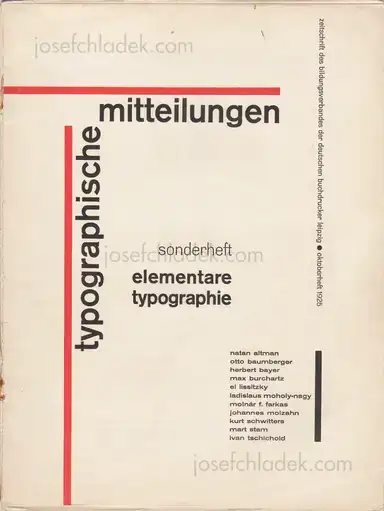
Jan Tschichold - Typographische Mitteilungen, Sonderheft Elementare Typographie Oktoberheft 1925, Verlag des Bildungsverbandes der deutschen Buchdrucker, 1925
Contains typographic works by Herbert Bayer, Max Burchartz, El Lissitzky, Moholy-Nagy, Johannes Molzahn, Kurt Schwitters, Mart Stam and Jan Tschichold (credited as Ivan Tschichold). Furthermore with the contributions: „Neues Bauen“ by Adolf Behne and „Dadaismus“ by Richard Huelsenbeck.
Two years after the 1923 Bauhaus exhibition, Tschichold was invited to serve as guest editor for the October 1925 issue of the printing trade journal Typographische Mitteilungen, for which he designed a twenty-four-page Sonderheft (special issue) insert entitled 'elementare typographie.' Originally intended as a Bauhaus special edition, this issue of typographische mitteilungen (the name of the journal being set in lowercase letters on this occasion) was entirely devoted to 'Die neue Typographie'. . . . Printed in red and black, the Sonderheft helped to clarify, demonstrate, and display the principles of the New Typography for professional printers, typesetters, and typographers. In addition to Tschichold's own typography, it presented work by the avant-garde designers Max Burchartz, Johannes Molzahn, Schwitters, Moholy-Nagy, Lissitzky, Bayer, and the Swiss poster designer Otto Baumberger. These images were accompanied by Tschichold's own articulate comments and observations. (modernism101.com)
Artist: Jan Tschichold
Place: Berlin
Year: 1925
Publisher: Verlag des Bildungsverbandes der deutschen Buchdrucker